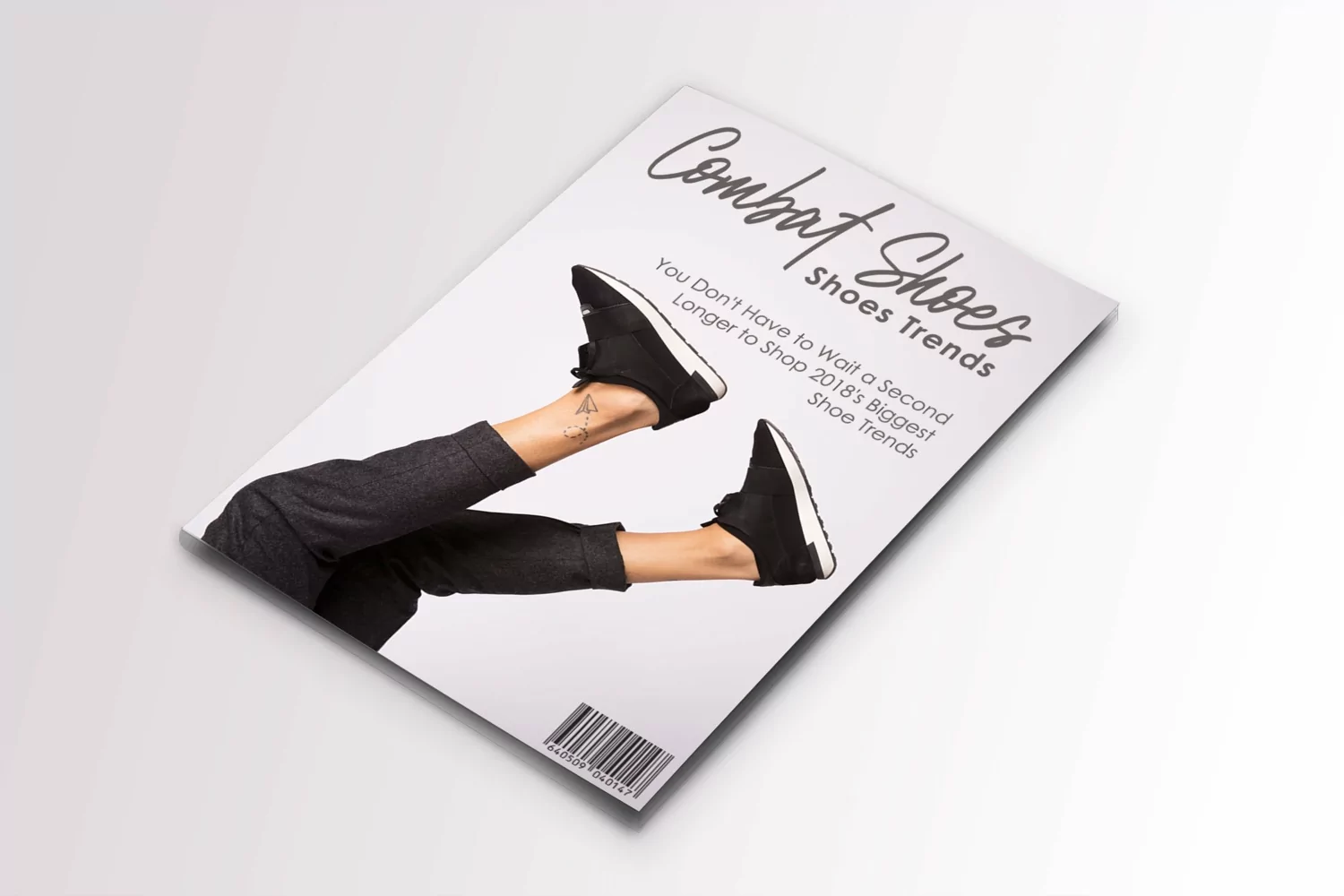
Natalia Roseline
Runsell Studio introduces a font that is special for fashion. This font matches applies in some designs such as the logotype, magazine, headline blog or website, packaging, branding, and more products. This font has a feminine impression. Natalia Rosaline there will be update features and other interesting fonts for extra bonus. This font is always exciting to design you create.